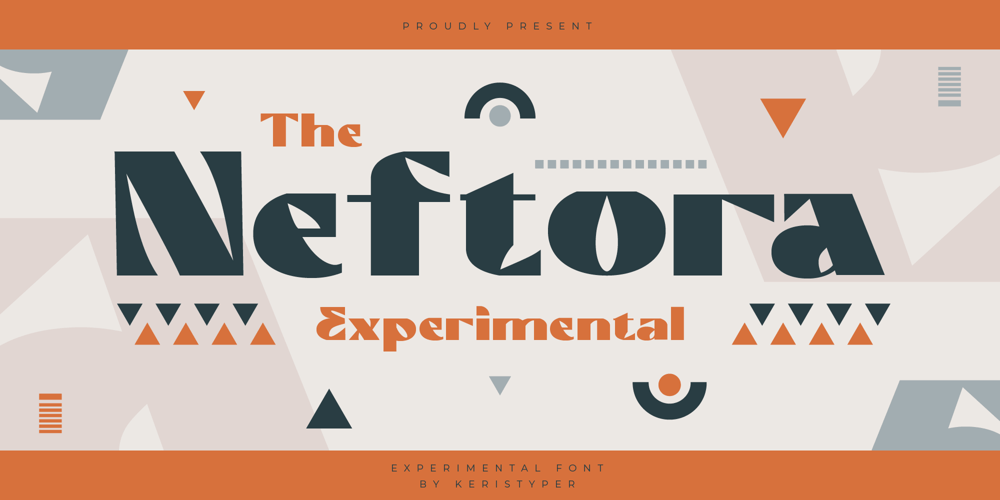
Neftora Font Family was designed by Tezar Tantular and published by Keristyper Studio. Neftora contains 1 styles and family package options. Neftora is an experimental display font with aesthetic and modern touch inspired by contemporary typography. This font is good for logo design, Social media, Movie Titles, Books Titles, short text even long text letters, and good for your secondary text font with sans or serif.Featured: Standard Uppercase & Lowercase Numeral & Punctuation Multilingual : ä ö ü Ä Ö Ü ß ¿ ¡ Alternate & Ligature PUA encoded We recommend programs that support the OpenType feature and the Glyphs panel such as Adobe applications or Corel Draw. so you can use all the variations of the glyphs.Hope you enjoy our fonts!